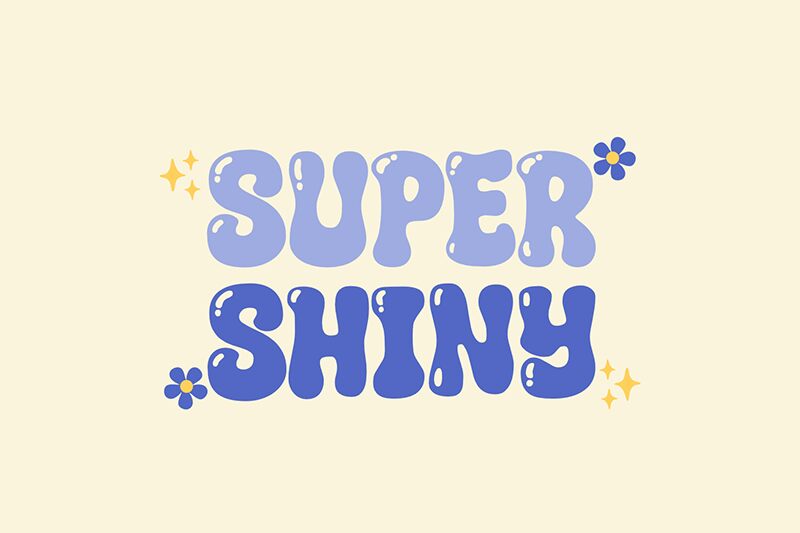
Super Shiny
Super Shiny font by fsuarez913 is a bold cartoon display typeface with bubbly, organic shapes. Eye-catching at first sight, its whimsical style can be attributed to its retro-inspired design that shines through in each letter. The text appears as if it is handwritten which adds to the overall approachable and friendly nature.
A free display font, Super Shiny is suitable for use in posters and flyers, T-shirt print designs, greeting cards, children’s book covers, comics strips and educative games or books. It should also work in product packages such as beverage package design due to its attractive nature.